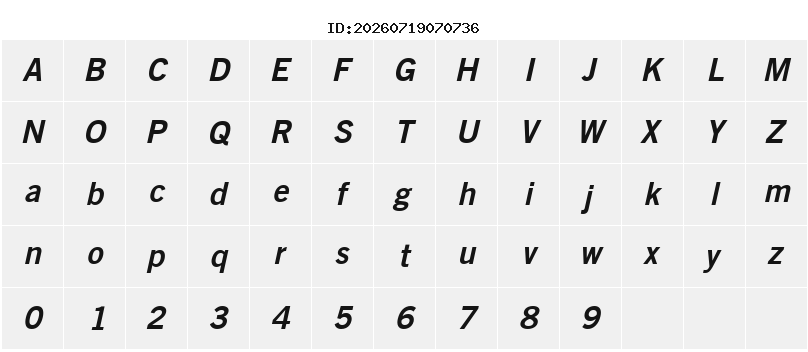
• Font Name: Commerce SSi
• Font Style: Semi Bold Italic
About Commerce SSi.ttf
Commerce SSi.ttf is a modern, elegant sans-serif font designed for ultimate readability and visual harmony. Perfect for branding, headlines, web design, and print materials.